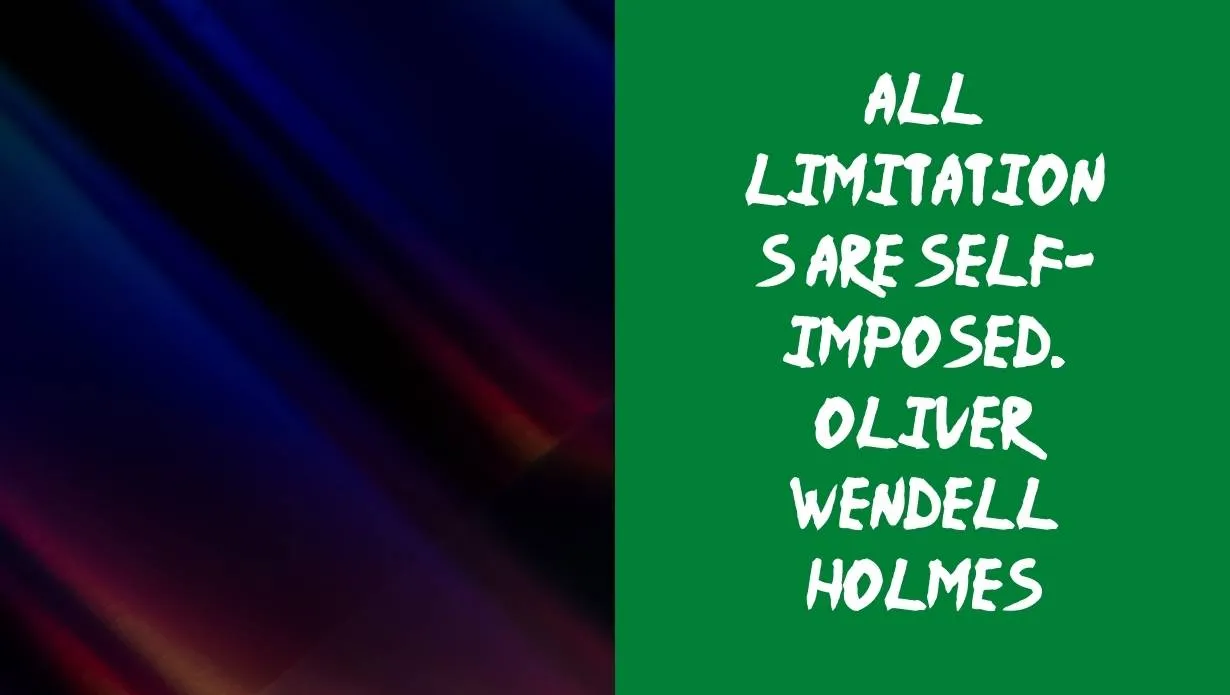
Naruto Font is a brush typeface based on the characters of the popular anime and manga series, Naruto. It belongs to the calligraphy family. The font was created by sk89q foundry in 2004. This typeface is available in both regular and bold weights.
This typeface consists of 94 different glyphs, including uppercase and lowercase letters, numbers, punctuation marks, and accented characters. The font would be perfect for headlines, logos, and other short text elements. This typeface looks like the pristina font.
Naruto Font Family
Name | Naruto Font |
Designer | sk89q foundry |
Style | Calligraphy |